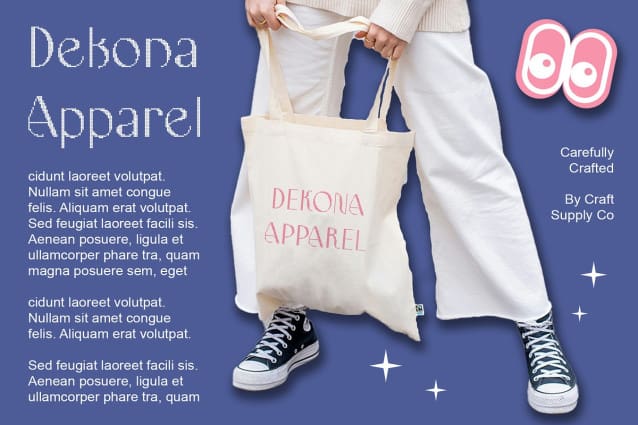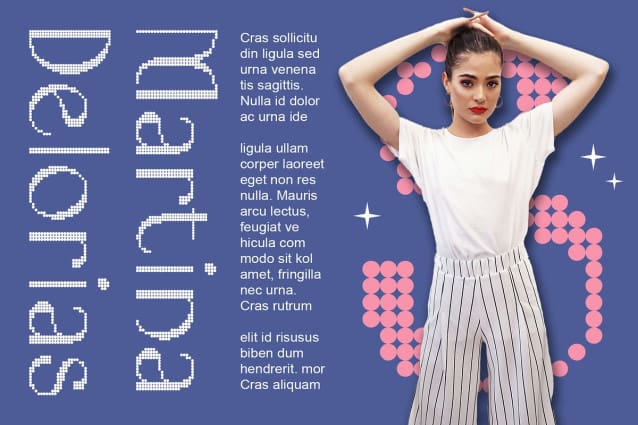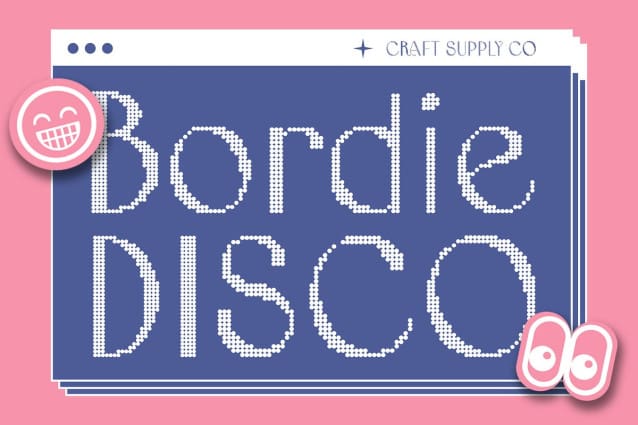
Bordie Disco Font
Bordie Disco Font is a sleek and elegant display font infused with a disco vibe. Featuring a unique dot pattern, this font is perfect for creating striking displays that combine sophistication with a touch of retro charm.
With its modern and elegant design, Bordie Disco adds a touch of class to any project. The distinctive dot pattern brings a playful disco twist, making it ideal for posters, event invitations, and other designs that need a stylish yet fun look.
Whether you’re designing a flyer for a chic event or packaging for an upscale product, Bordie Disco is sure to impress. Its sleek design and unique dot pattern make it perfect for creating displays that catch the eye and leave a lasting impression.
Despite its refined appearance, Bordie Disco is versatile and easy to use. The font works well in both large and small sizes, making it suitable for a variety of applications, from headlines and banners to logos and more. With its blend of modern elegance and disco flair, Bordie Disco adds a sophisticated yet lively touch to any design.